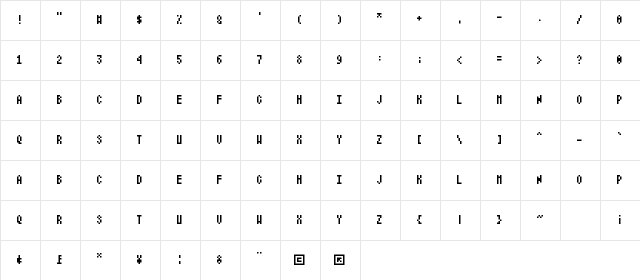
Irata Medium Font Preview
Irata Medium
Irata Medium Font Details
Design Context for Irata Typeface
Irata takes a measured approach to typography — its balanced proportions and neutral character make it a reliable workhorse for both digital and print work.